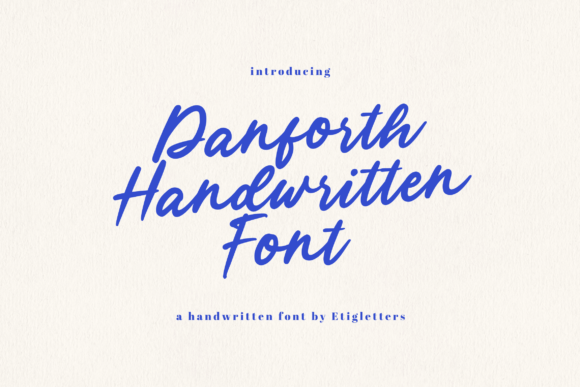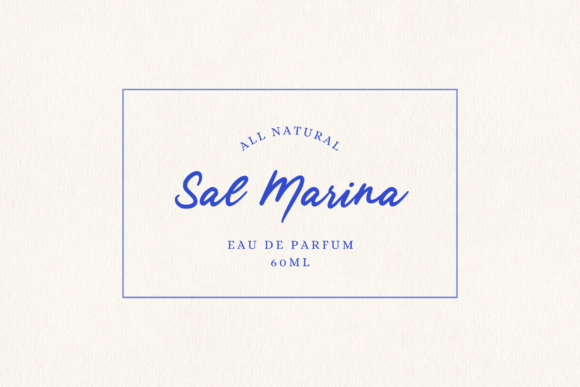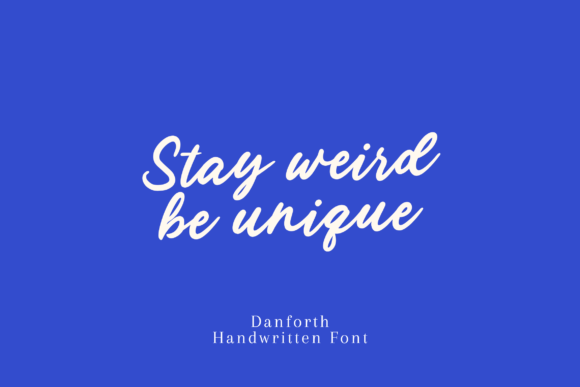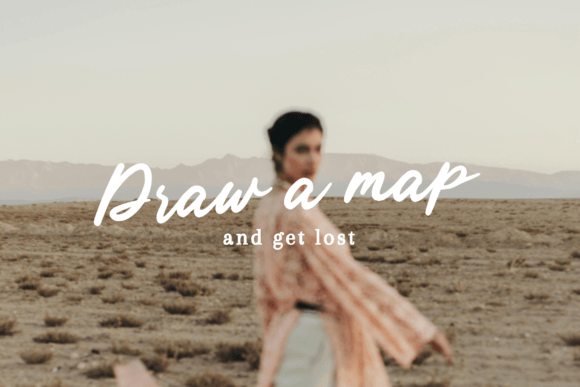
Danforth Font: A Sweet Handwritten Font for Cute Branding & DIY Projects
About the Danforth Font
Presenting Danforth Font, a unique and stylish typeface that will make your work stand out. Danforth is a sweet and friendly handwritten font. Its natural and unique style makes it incredibly fitting to a large pool of designs. The only limit is your imagination!
Danforth’s friendly, handwritten style excels in headlines, short-form text on packaging, and social media graphics. Its charm works well for branding projects targeting a younger demographic or emphasizing a handcrafted, artisanal feel. However, its informal nature makes it unsuitable for body text, long paragraphs, or applications requiring high readability, such as UI or legal documents.
For a balanced aesthetic, pair Danforth with a clean sans-serif like Open Sans for body text or a more geometric sans-serif like Montserrat for a modern contrast. A classic serif like Garamond could also provide a sophisticated counterpoint, adding a layer of traditional elegance to offset Danforth’s casual feel.
Overall, Danforth projects a warm, approachable personality, ideal for brands that value authenticity and a human touch. Avoid using it where formality or legibility are paramount.